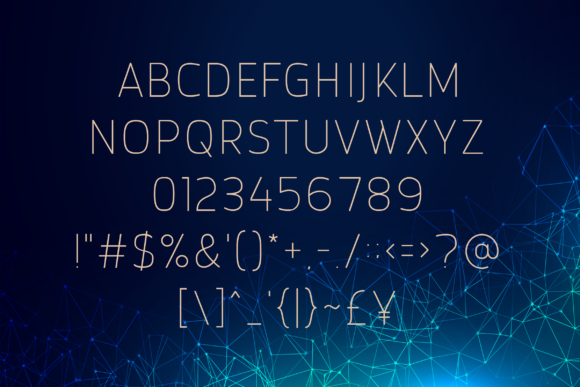
I still remember the frustration of working on a project, hours spent crafting the perfect design, only to realize that the font I chose wasn’t quite right. The client wanted something elegant, yet modern; stylish, yet readable. Sound familiar? I was on the verge of pulling my hair out when I stumbled upon **Browncode Thin**. This wonderfully stylish and elegant sans serif font has perfectly balanced letters that instantly delivered the clarity, style, and absolute readability I needed.
An Honest Review of Browncode Thin
• ✨ **Elegant and Modern Design**: Browncode Thin boasts a sleek, contemporary look that’s perfect for designs that require a touch of sophistication.
• ✅ **Perfectly Balanced Letters**: The font’s balanced letters ensure that your message is conveyed with clarity and readability, making it ideal for body text and headings.
• 💡 **Versatile**: Whether you’re working on a branding project, crafting a website, or creating social media graphics, Browncode Thin adapts seamlessly.
While Browncode Thin is an excellent font, there are a few minor considerations to keep in mind:
• ⚠️ **Limited Contrast**: Some users might find that the font lacks sufficient contrast for certain design applications, particularly when used on light backgrounds.
• 🤔 **Glyph Limitations**: As with many thin font variations, some decorative glyphs or special characters might not be as intricate as those found in more elaborate fonts.
While the origins of Browncode Thin might not be well-documented, it’s easy to imagine a designer driven by a passion for minimalist elegance and readability. Perhaps the creator, fueled by late-night coffee and a love for typography, aimed to craft a font that would bring clarity and style to any project. The result is a font that feels both contemporary and timeless.
Q: What makes Browncode Thin suitable for body text?
A: Browncode Thin’s perfectly balanced letters and elegant design make it highly readable, even at smaller sizes, making it suitable for body text.
Q: Does Browncode Thin support OpenType features?
A: Yes, Browncode Thin supports OpenType features, including stylistic alternates and glyphs, allowing for greater typographic flexibility.
Q: Is Browncode Thin available in other weights?
A: While this article focuses on Browncode Thin, it’s worth checking the font family for other weights that might suit different design needs.